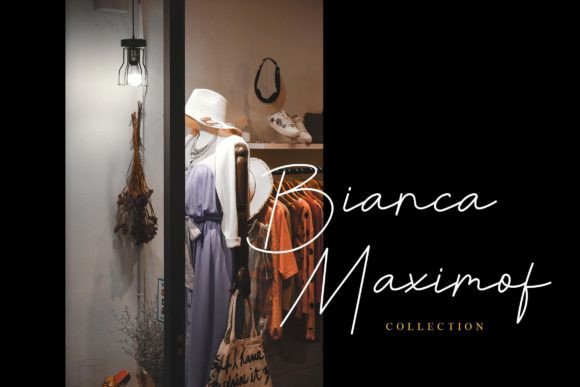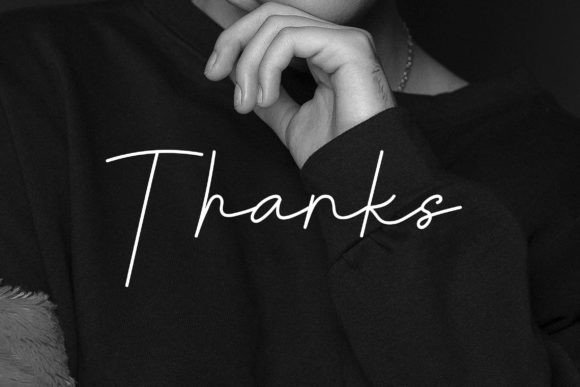
Bring Your Creative Vision to Life with Anthena Font
You know that moment when inspiration strikes, and your mind starts racing with ideas for your next creative project? The blank page or screen stares back at you, begging for a spark to ignite the flame. It’s moments like these that call for a trusted companion to help you bring your vision to life.
Enter Anthena Font, a stunning signature script font designed to elevate your creative projects to new heights. This elegant and stylish font is perfect for adding a touch of sophistication and whimsy to your designs. Whether you’re a graphic designer, writer, or artist, Anthena Font is an invaluable asset to have in your toolkit.
With Anthena Font, you’ll be able to create stunning typography that captures the essence of your brand or story. Its versatility and elegance make it a valuable addition to any designer’s arsenal, ensuring that your projects stand out from the crowd.
Anthena Font Key Features
- Character Count: The font includes a comprehensive set of characters, covering multiple languages and scripts, with over 500 glyphs.
- Font Size and Resolution: Anthena Font is designed to be highly legible at various font sizes and resolutions, making it suitable for use in print and digital media.
- Unique Characteristics: The font features a distinctive, elegant design with a mix of modern and classic elements, making it an ideal choice for luxury, fashion, and high-end branding applications.
- Font Weight and Style: Anthena Font is available in multiple weights and styles, including bold, italic, and condensed versions, offering flexibility for designers to create visually appealing typography.
Anthena Font Review
As a designer, I’ve had the chance to work with various fonts, and Anthena is one that caught my attention. Let’s dive into its strengths and weaknesses.
- Unique and Elegant Design: Anthena’s distinctive curves and refined lines make it perfect for titles, headings, and other prominent text.
- Excellent for Branding: This font’s sophisticated look can elevate a brand’s image, making it suitable for luxury, fashion, or high-end products.
- Good Legibility: Despite its complex design, Anthena remains readable, especially at larger font sizes.
- May Not Be Suitable for Body Text: Due to its complex design, Anthena might be challenging to read at smaller font sizes, making it less ideal for large blocks of text.
- Limited Font Variations: Currently, Anthena only comes in a limited range of weights and styles, which might restrict its versatility.
- Not Ideal for Informal Content: Anthena’s sophisticated look might not be the best fit for casual or humorous content.
Anthena is a beautiful font that shines in its own right. While it may have some limitations, its unique design and elegant feel make it perfect for specific use cases. If you’re looking to add a touch of sophistication to your design, Anthena is definitely worth considering.
Practical Application Guide for Athena Font
For best results, use Athena Font in headings and titles to create a clean and modern look.
Athena Font pairs well with minimalist graphics and clean designs.
Athena Font is ideal for presentations and documents that require a clean and professional look.
Athena Font is versatile and can be used in a variety of designs, including:
- Body text
- Presentations and documents
For best results, use Athena Font in combination with clean and minimalist designs.
Alternatives to Anthena Font
Montserrat is a modern sans-serif font designed by Julieta Ulanovsky. It’s perfect for use in digital products, magazines, and websites where a clean and minimalist aesthetic is desired. Montserrat is more geometric and structured compared to Anthena Font, which has a more elegant and refined feel.
Open Sans is a popular sans-serif font designed by Steve Matteson. It’s highly legible and works well in a variety of contexts, from body text to headings. Open Sans is more rounded and friendly compared to Anthena Font, which has a more sophisticated and elegant feel.